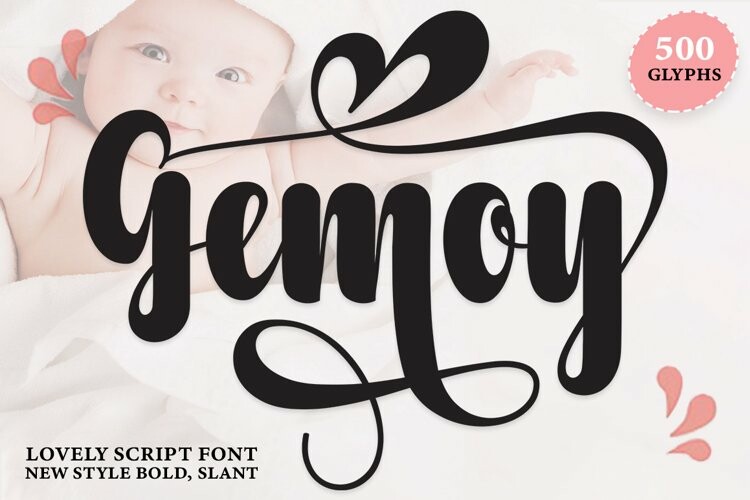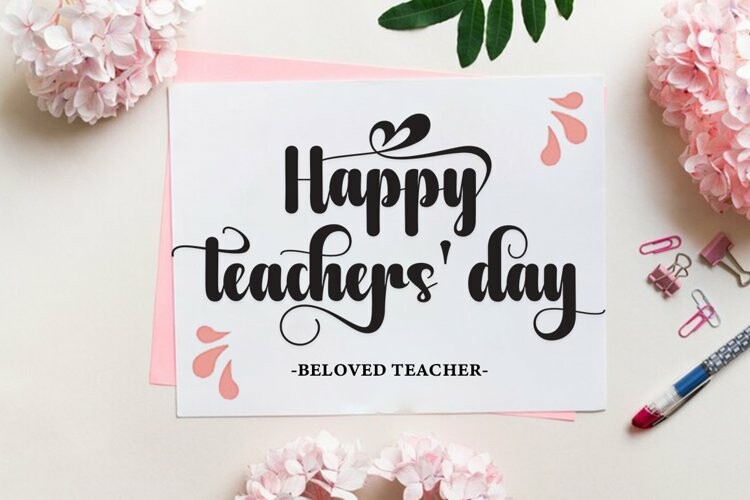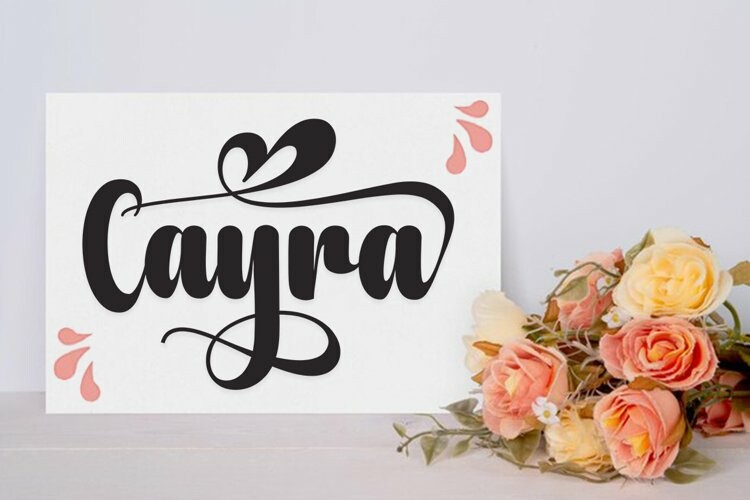
Gemoy Font
Gemoy FontGemoy is a flowing, handwritten font, explained with an elegant touch, perfect for your favorite projects.
Each letter has a unique and beautiful touch, which will bring your designs to life.
It will add a fun and romantic touch to any of your designs!
It is the best choice for creating attractive logos, branding and quotes.
And latest style fonts are perfect for wall hangings, wedding invitations, social media post logos, advertisements, product packaging, product design, labels, photography, watermarks, invitations, stationery and any project that requires a taste for handwriting.